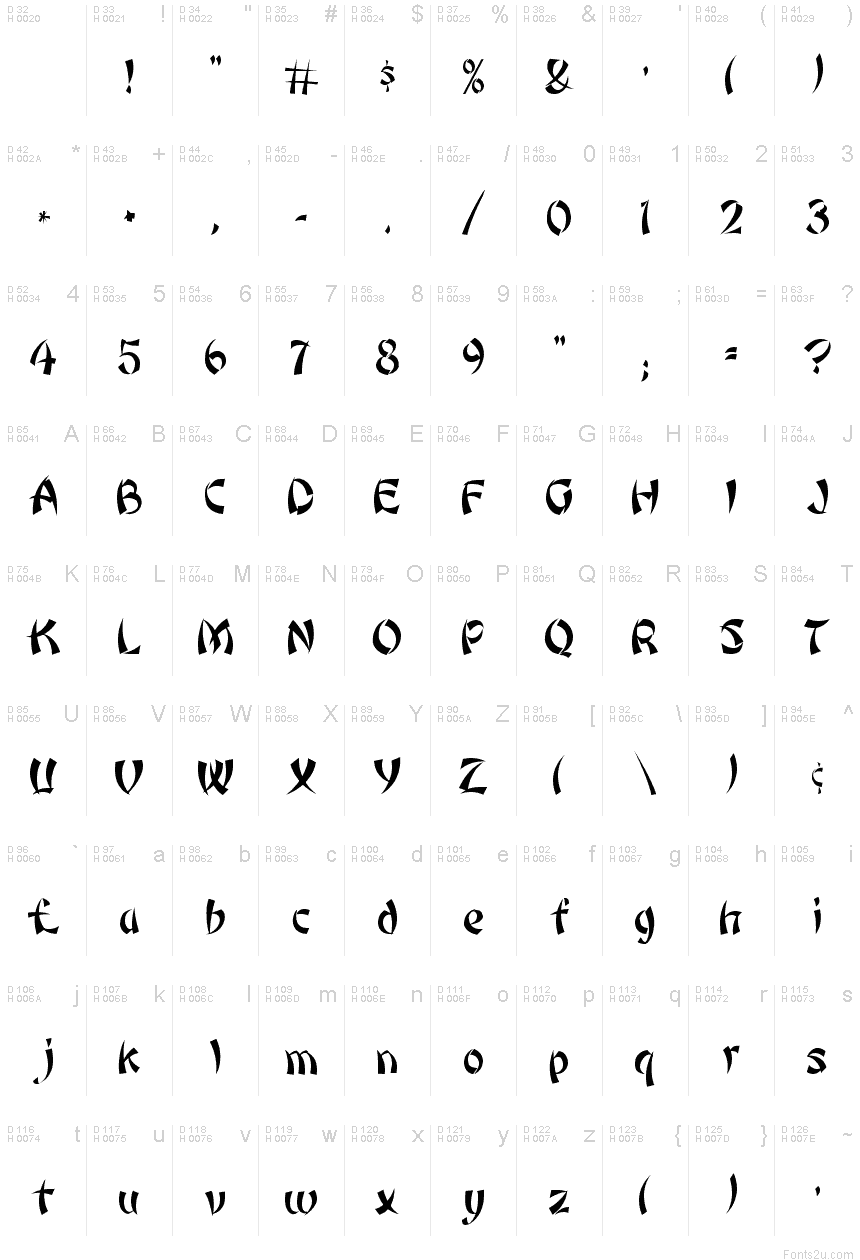
Bonzai Regular
Bonzai font by Metamorphosis Professional is a free Japanese-style decorative typeface that slices across the page like bold brushstrokes on rice paper. Each letter leans and flares with sharp, ink‑heavy curves, giving text a dramatic, hand‑painted energy without becoming unreadable. The irregular rhythm feels organic and slightly wild, great when you want a touch of “street market” edge instead of polite minimalism.
Using Bonzai, your titles snap to attention on ramen packaging, Asian fusion menus, event posters, martial arts flyers, game logos, or themed party invitations. This free font shines when used large, with plenty of breathing room, and it pairs well with a clean geometric sans for body text to keep your layouts grounded and clear.